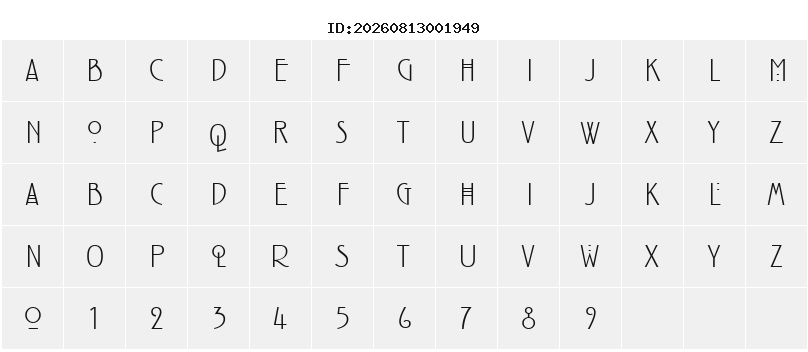
RennieMackintoshITC TT Preview
• Font Name: RennieMackintoshITC TT
• Font Style: Light
• Full Font Name: RennieMackintoshITC TT Light
About RennieMackintoshITC TT.ttf
RennieMackintoshITC TT.ttf is a modern, elegant sans-serif font designed for ultimate readability and visual harmony. Perfect for branding, headlines, web design, and print materials.